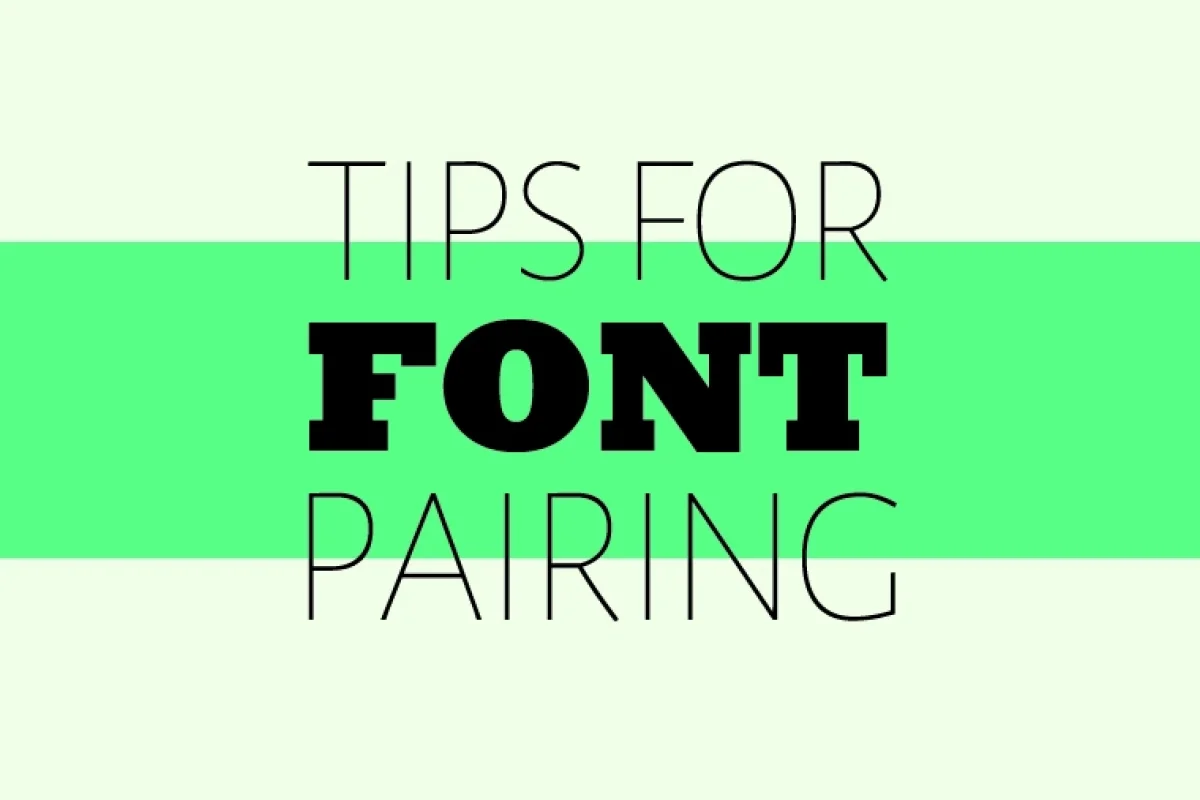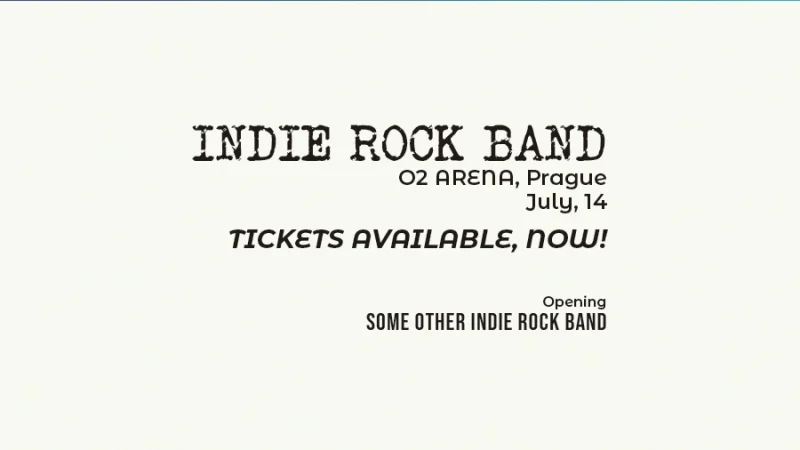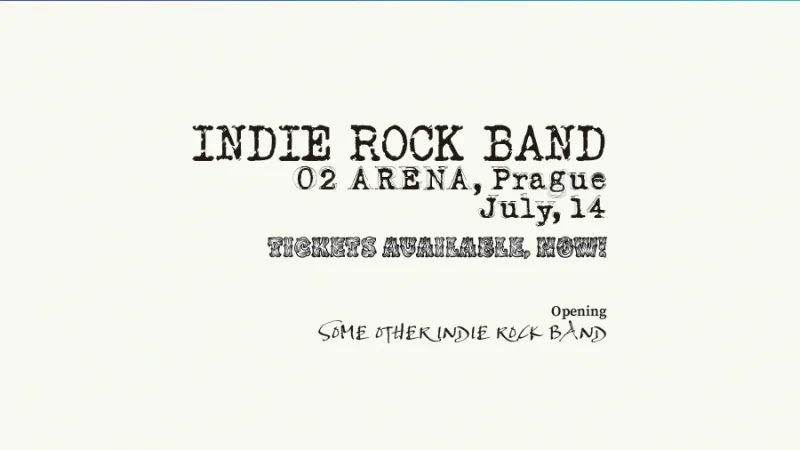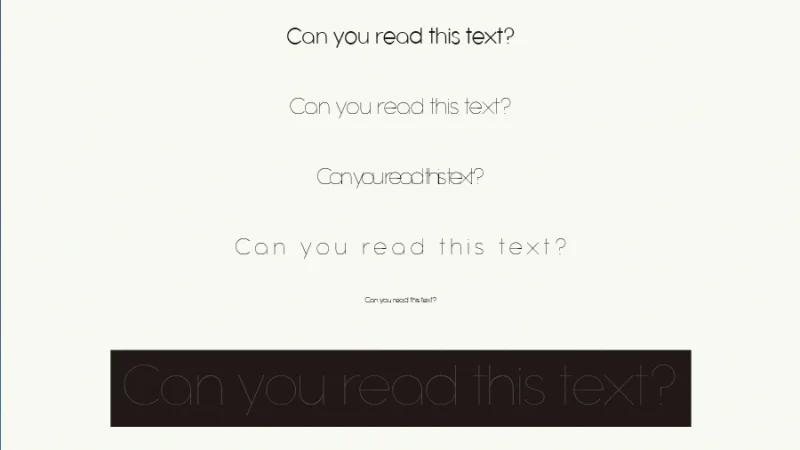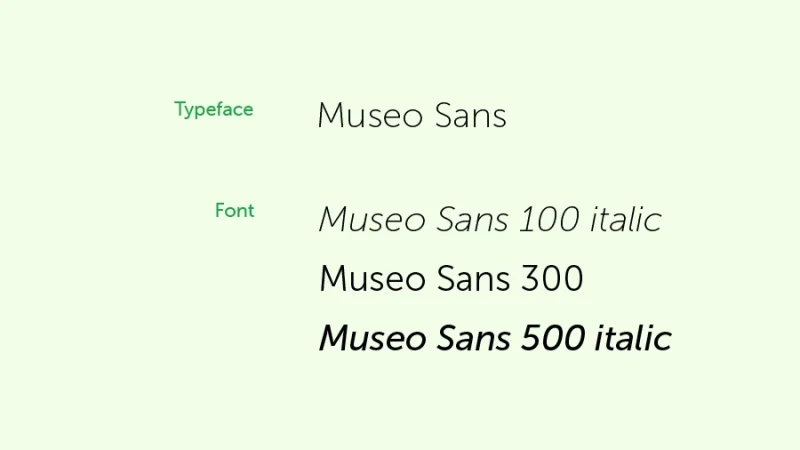
tips for font pairing
Mastering Font Pairing: Tips and Techniques for Designers
In this post, we will cover font pairing. This skill can be challenging for both beginning and more experienced designers, so I always recommend finding a method for font picking and pairing before jumping head into an infinite scroll of typefaces and fonts.
To start, I’ll cover the basics and then go into a step-by-step approach to font pairing that will help you tackle your projects like a true professional!
The Basics of Font Pairing
Typography and font pairing are as vital to graphic design as drawing shapes, editing images, or working with beautiful color palettes. Font pairing is the combination of different typefaces or fonts to ensure both aesthetic harmony and efficient communication.
What’s the difference between typefaces and fonts, you may ask? Easy!
• A Typeface is the overall design of a group – or family – of characters that share common design features, like shape, serifs, balance, or spacing.
• Fonts are specific versions or variations within a typeface, such as different sizes, weight, or style.
museo sans typeface and three font style variations
A font is a style variation inside a font family, also known as Typeface
Let’s move on to Typeface Categories and take a look at the ones that you will be using regularly if you work as a graphic designer.
Typeface Categories identify the design style behind each typeface. These styles are key for understanding the psychology behind typography and, ultimately, helping you with selecting and pairing choices.
four font categories displaying text sample and typeface names
Understand the design style of each category to support your font choices
• Serif Fonts have small decorative strokes, or serifs, at the end of their letters. They convey a sense of tradition and formality and are a strong choice for editorial design.
• Sans Serif Fonts don’t have stroke decorations, display a clean and modern appearance, and are the best choice for digital media.
• Script Fonts are similar to human handwriting and calligraphy and convey a sense of elegance and personal attention. They are great for logo design!
• Display Fonts are designed for stealing the show. They can be bold and heavy or unusual and surprising, perfect for headlines or short text blocks that stand out.
One last set of definitions: let’s clarify the difference between legibility and readability and understand why these are so important to font pairing.
Legibility refers to how easily a reader can identify each individual character in a word or sentence. Legibility can be influenced by each typeface style, size, and spacing between letters, or kerning.
Readability focuses on how easily a reader can understand text as a whole. Kerning and leading, the space between lines of text, are vital for a comfortable reading experience.
examples of strong and poor headline and body text legibility and readability.
Legibility and readability must be a priority. Which of these examples looks best for you?
To master font pairing you will also need to find balance between contrast and cohesion in your design.
Contrasting fonts capture attention and create visual interest – people will spend more time looking at your message, creating a deeper connection with it.
Similar fonts harmonize with a design in a comfortable and consistent way – people will feel safe and trust your message, creating a positive emotional response.
three font pairing examples considering contrast cohesion and both principles
Achieving balance takes practice and observation. Look around for font pairings and see how you connect to them.
• In the first example, I used contrast to attract attention, by pairing two different typeface categories, display and script. It’s appealing but it feels like something is off.
• In the second example, cohesion holds everything together because I paired two fonts from one single typeface. Looks all nice and solid, but it feels a bit boring.
• In the third example, I tried to find a balance between both contrast and cohesion, by pairing a serif font with a sans-serif font and keeping their styles simple and legible.